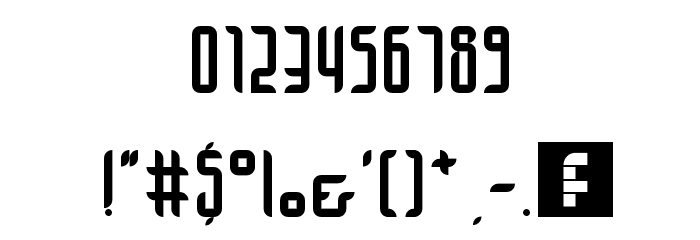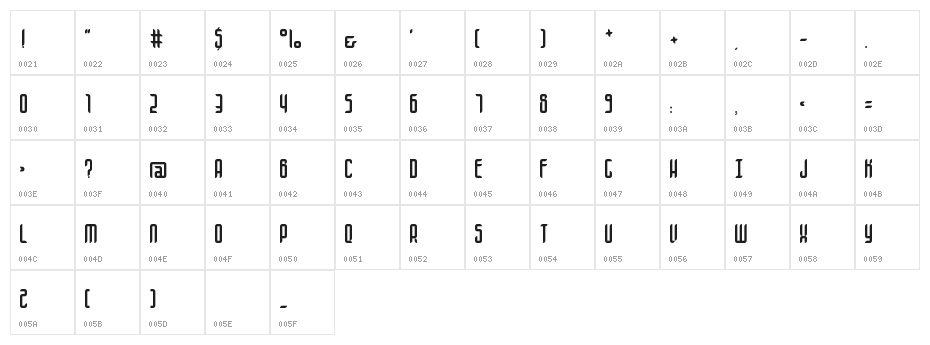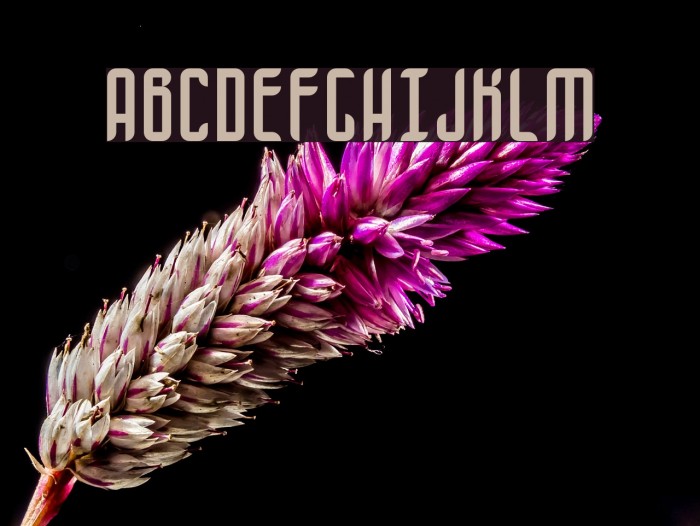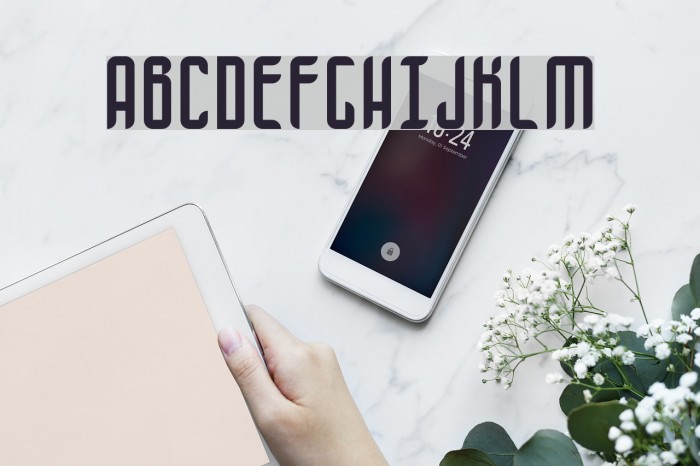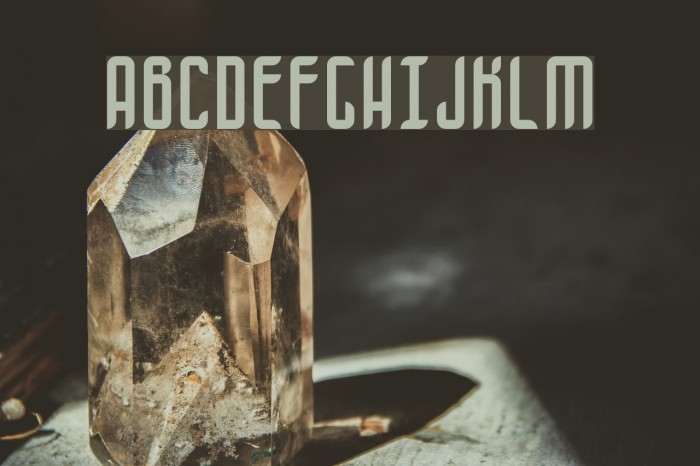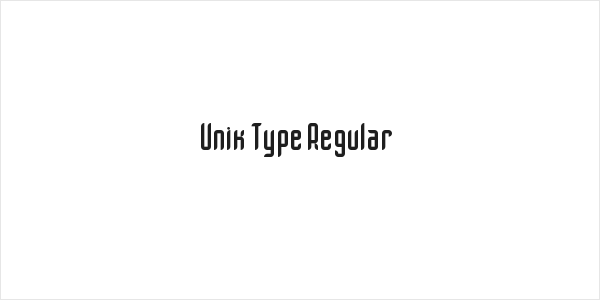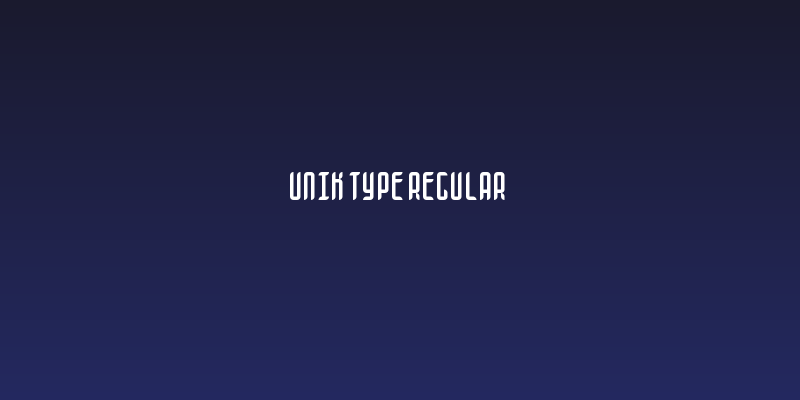
Unik Type Regular Font
Unik Type Regular Description
This font features a unique, modern design with a geometric and slightly condensed structure. The characters have a consistent stroke width, giving it a uniform appearance. The uppercase letters are bold and assertive, while the lowercase letters maintain a similar style with slightly more curvature. The numerals are distinct and easy to read, matching the overall aesthetic. Special characters are creatively designed, adding to the font's distinctive look. This font is suitable for projects that require a contemporary and edgy feel.